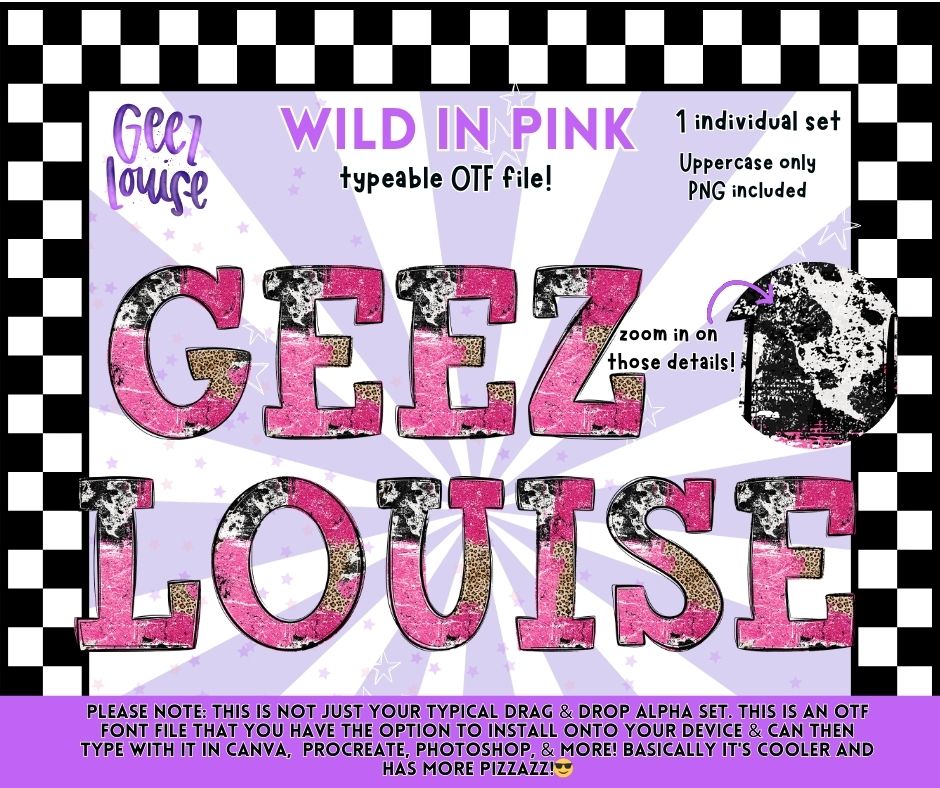
Wild in Pink OTF Font & PNG Alpha Set | Typeable Alphabet | Uppercase Letters | Digital Download
Add bold pink grunge style lettering to your designs with this typeable OTF alpha set featuring a distressed animal-inspired look.
• Uppercase letters only